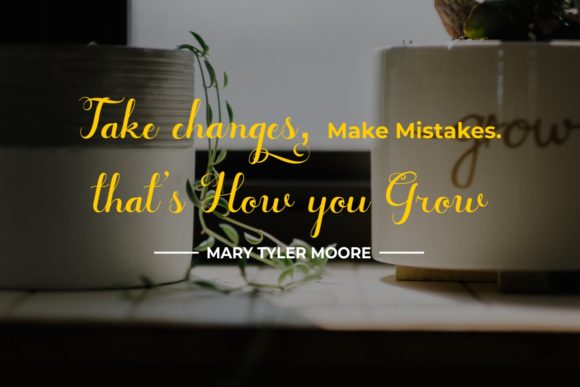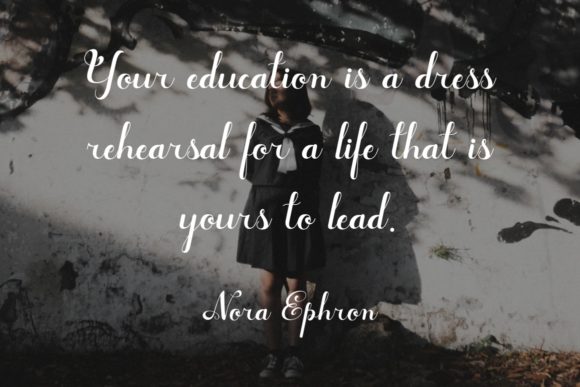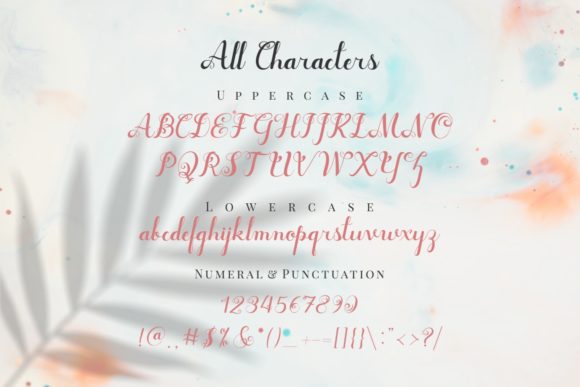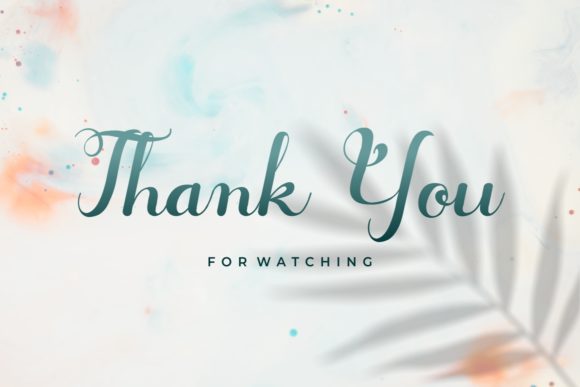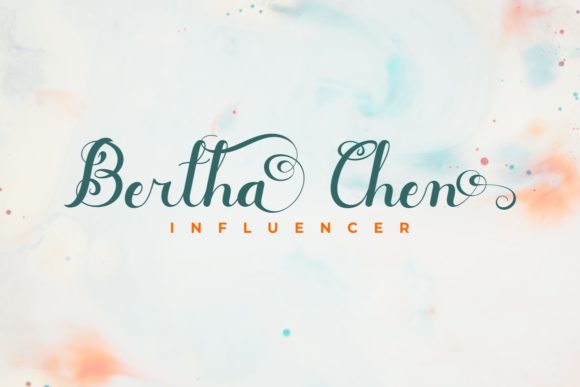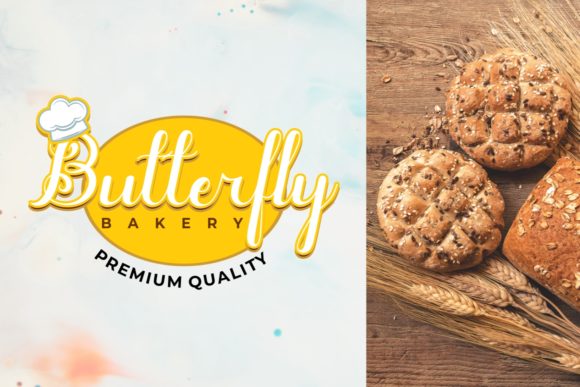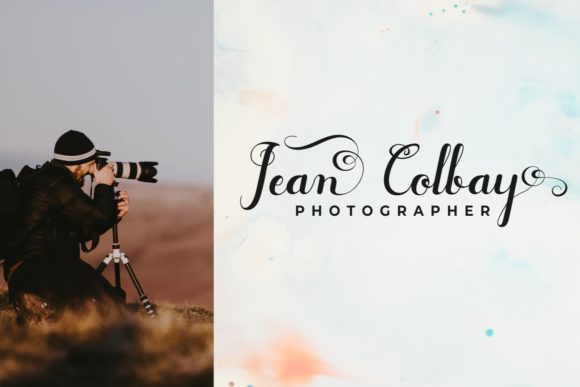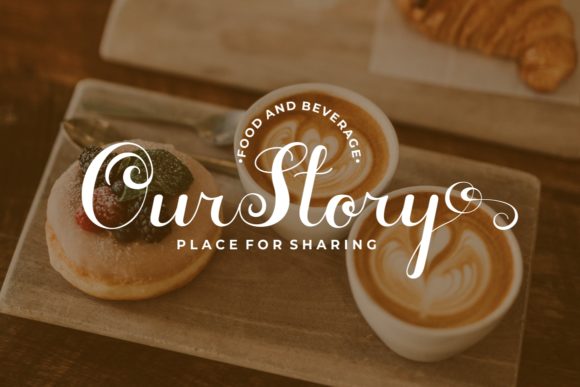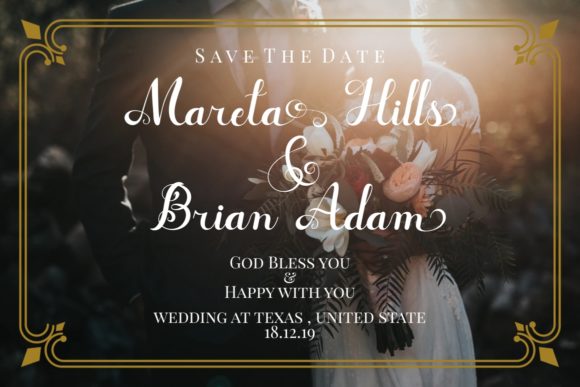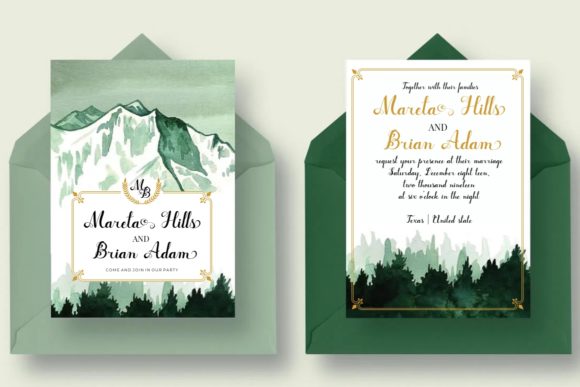
Syarena Font
About Syarena Font
Syarena is an elegant and flowing handwritten font. It is PUA encoded which means you can access all of the glyphs and swashes with ease! It features a varying baseline, smooth lines, gorgeous glyphs and stunning alternates. It maintains its classy calligraphic influences while feeling contemporary and fresh. Fall in love with Matthias and bring your projects to the highest levels!